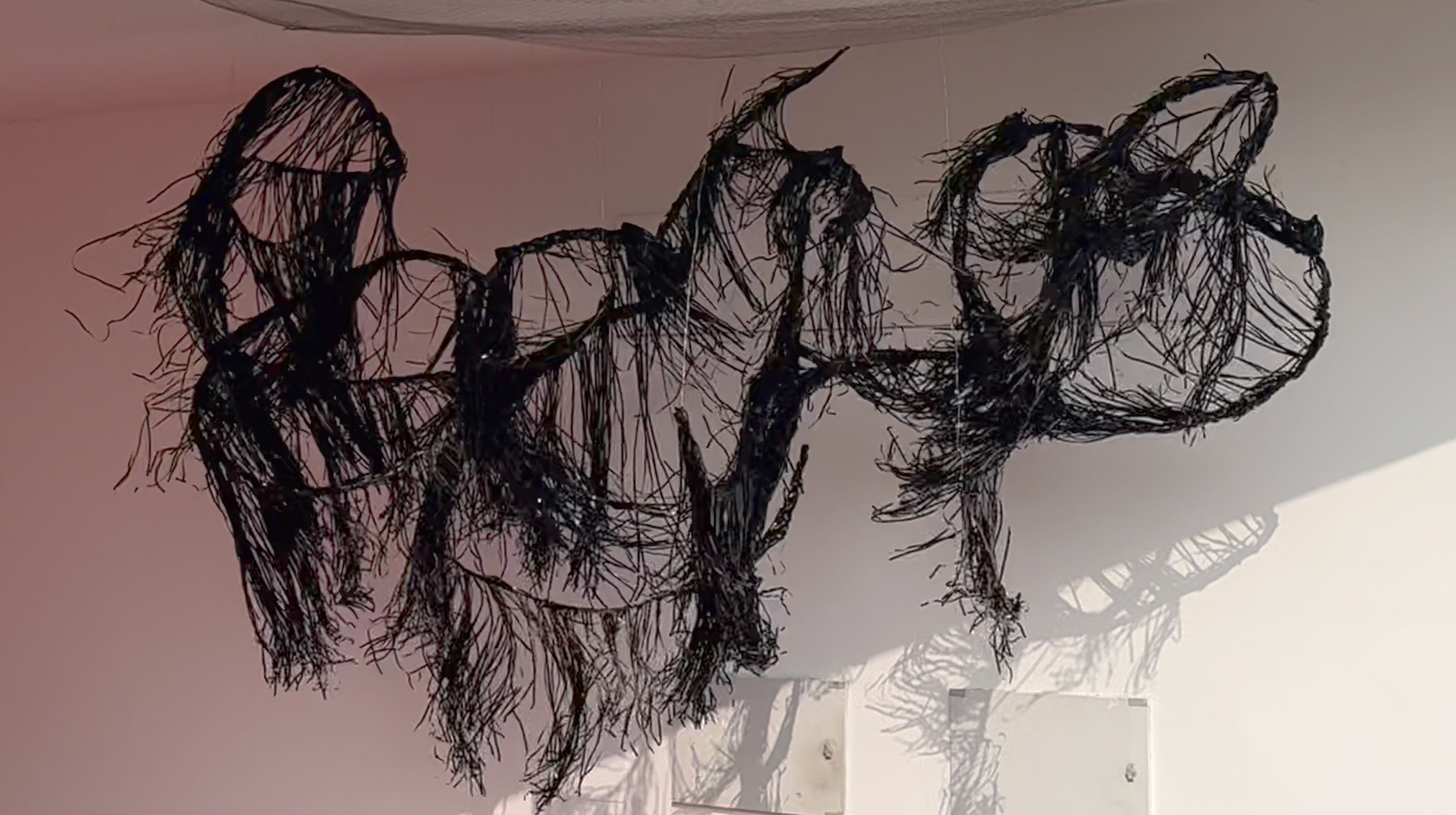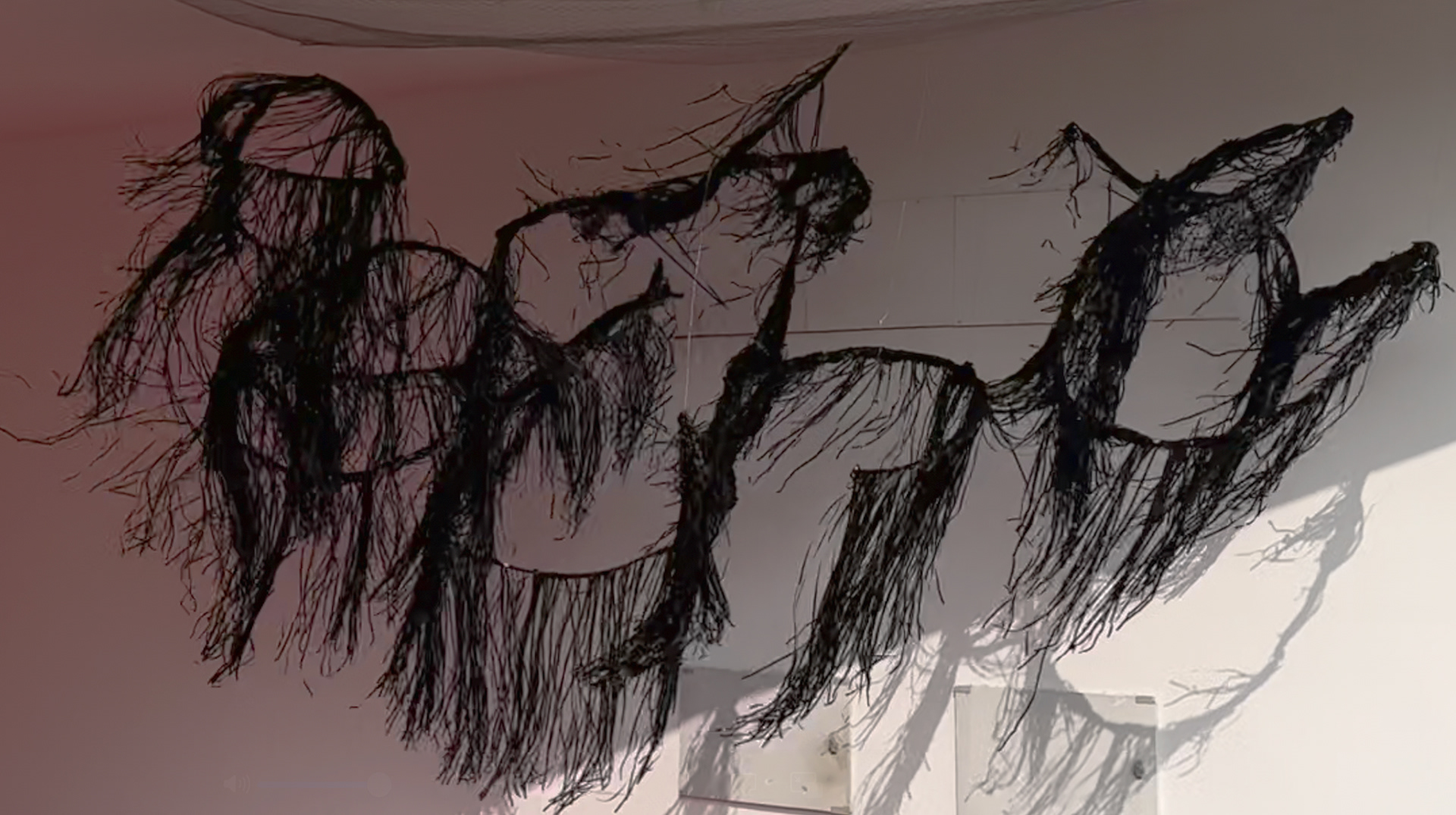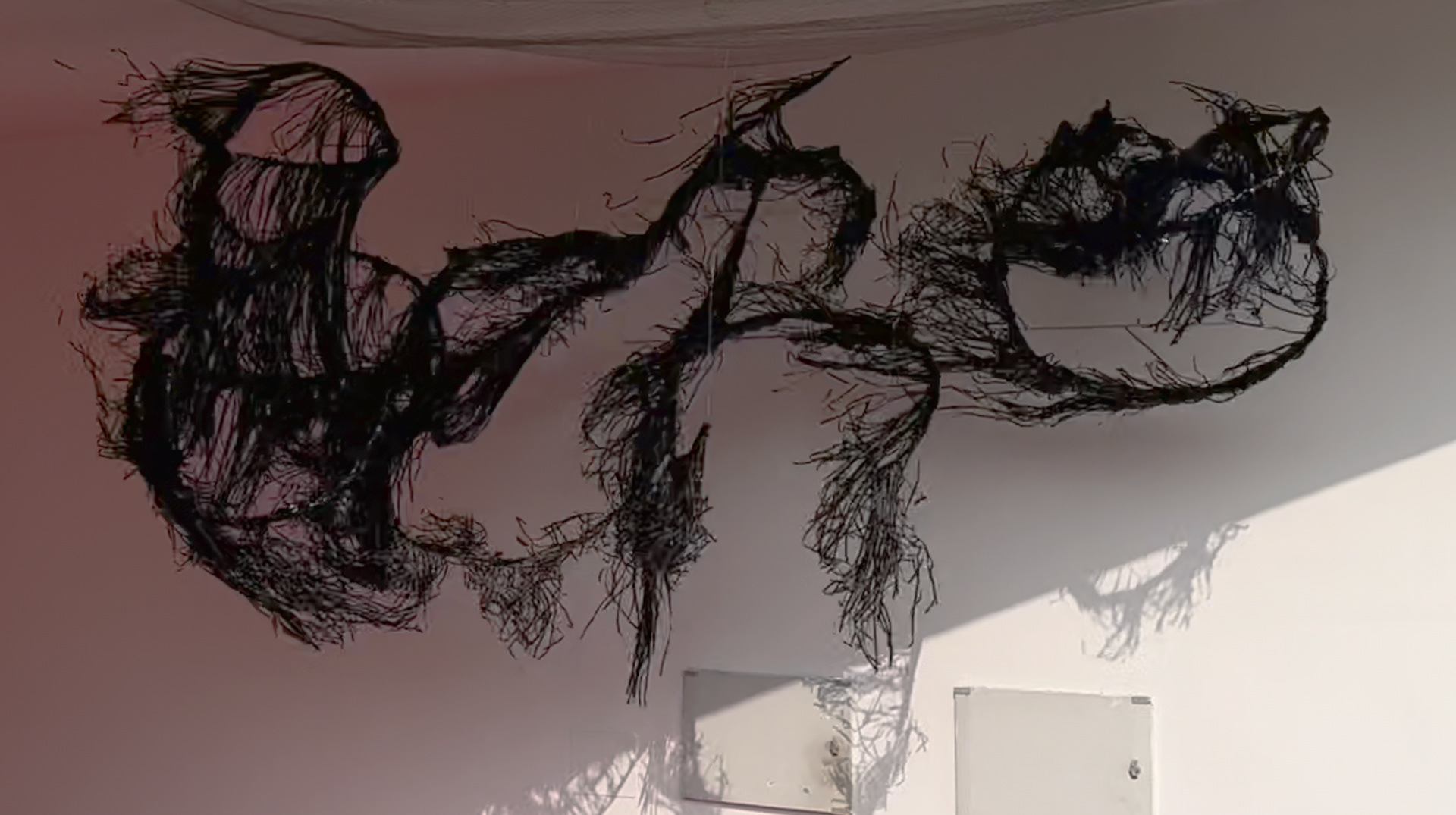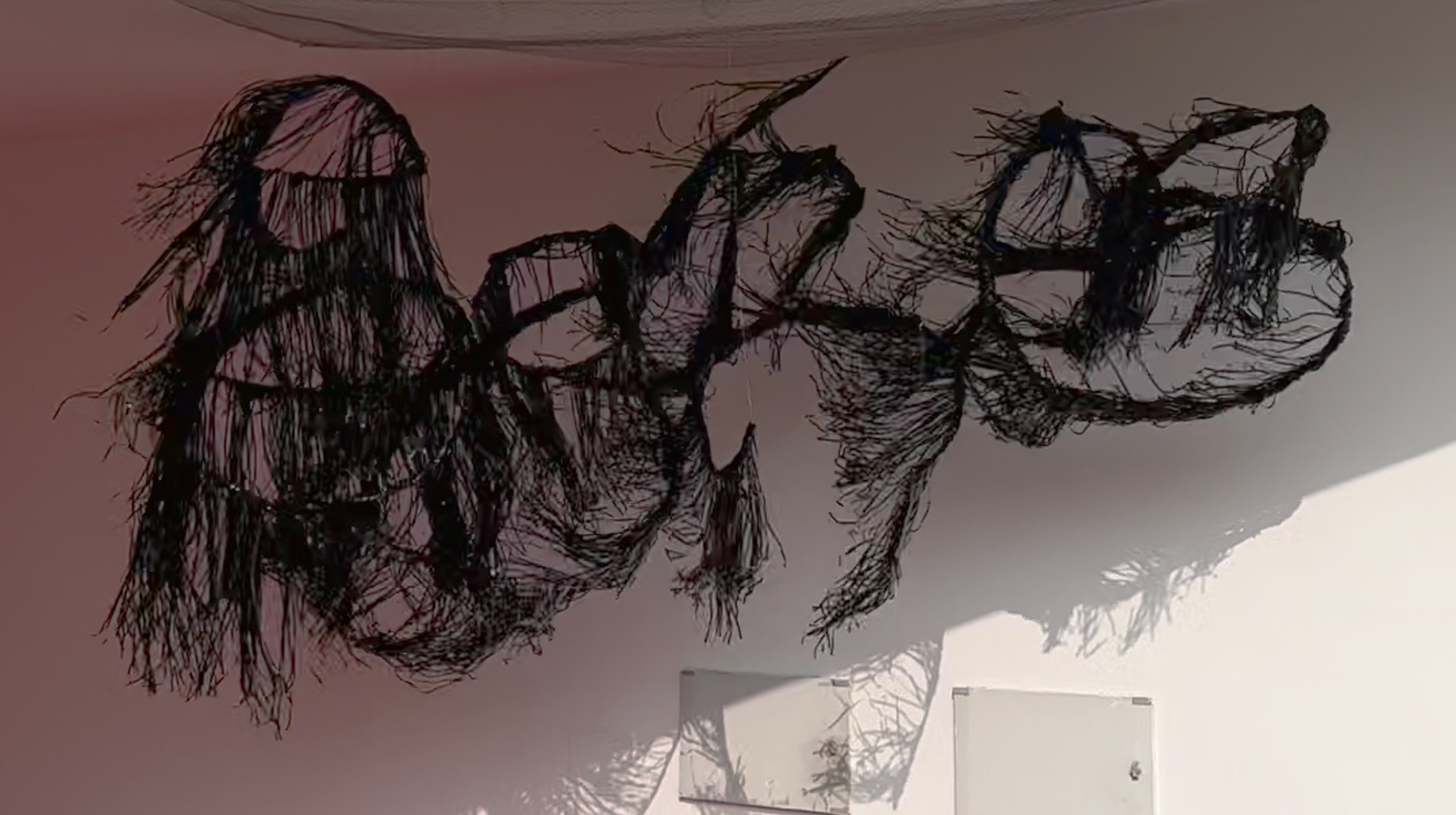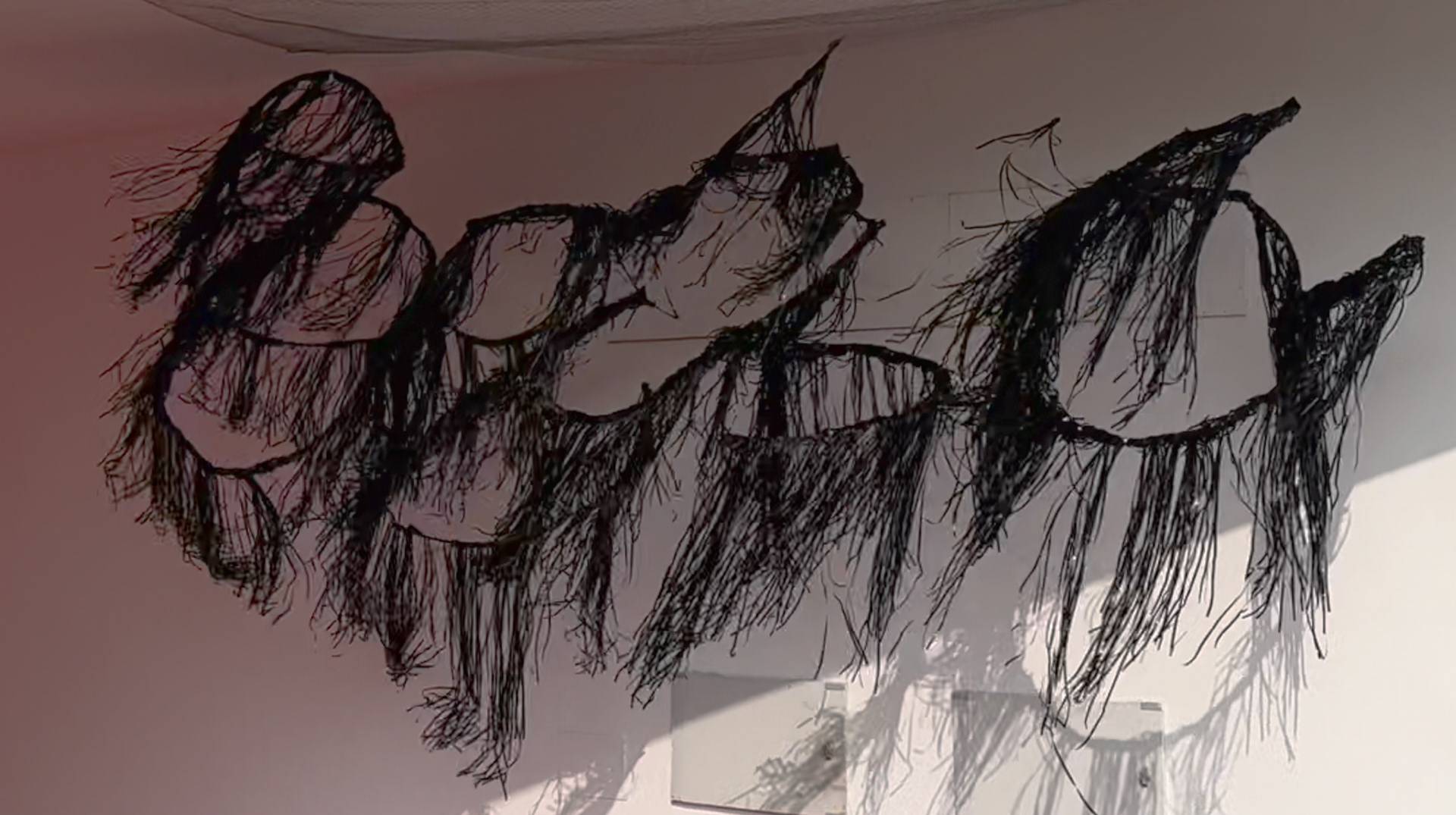
The installation transforms urban sounds into typographic forms, creating a dynamic interplay between structure and narrative. Developed duringĀ DJAD Designer Assemble 2025 in Coimbatore, India, it draws inspiration from literature that captures the poetic and philosophical essence of the city. Through shifting scales and layered compositions, the work reimagines typography as a spatial and sensory experience, mirroring the rhythms, complexities, and intangible echoes of urban life. Visitors are invited to navigate this immersive typographic landscape, where text and space converge in a continuous, evolving dialogue.